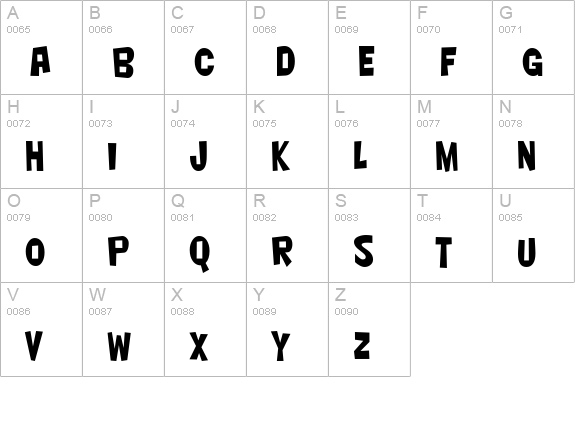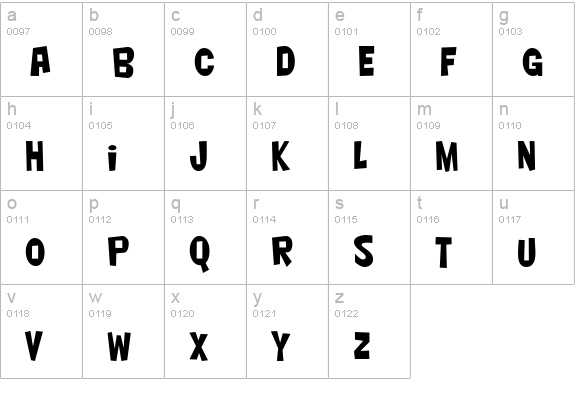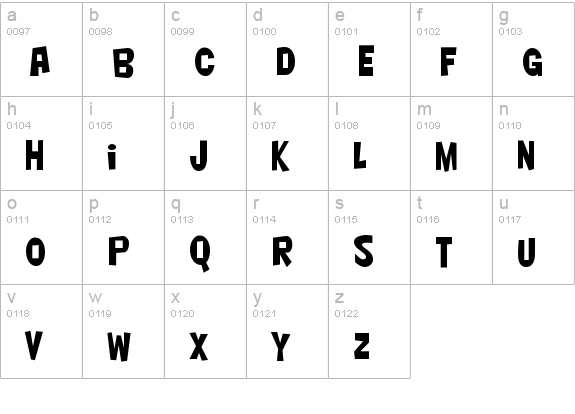
Nightclub BTN Cn Font Details
Nightclub BTN Cn font is a stylish and modern typeface that is perfect for creating eye-catching designs. With its sleek and elegant appearance, this font is sure to make your projects stand out. Whether you're designing flyers, posters, or social media graphics, Nightclub BTN Cn font will add a touch of sophistication to your work. The best part is that Nightclub BTN Cn font is completely free to download at FontsMarket.com. This means that you can use this versatile font in all your personal and commercial projects without any additional costs. So go ahead and elevate your designs with the sleek and contemporary Nightclub BTN Cn font today!